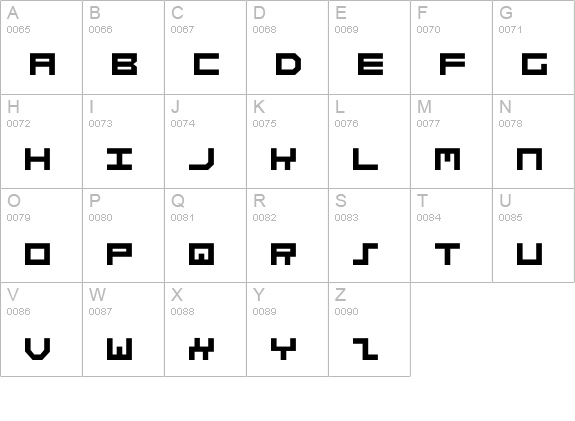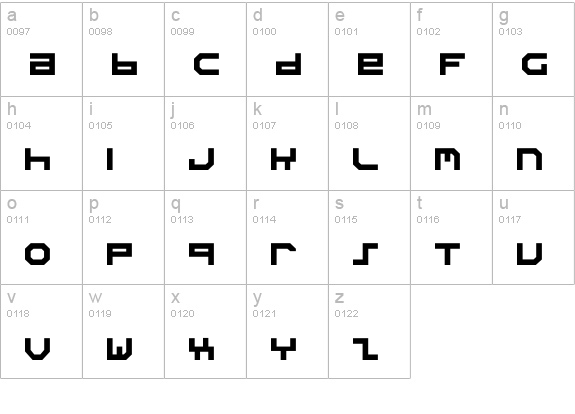
Introducing the dynamic and bold Stuntman font, designed to make your projects stand out with its edgy and adventurous style. This font exudes energy and excitement, perfect for capturing attention and adding a sense of thrill to your designs. Whether you're working on posters, logos, or any other creative project that needs a touch of daring flair, Stuntman is sure to deliver. The best part? Stuntman font is available for free download at FontsMarket.com, making it easily accessible for all your design needs. Say goodbye to boring typography and elevate your work with the exhilarating charm of Stuntman font. Download now and let your creativity take center stage!